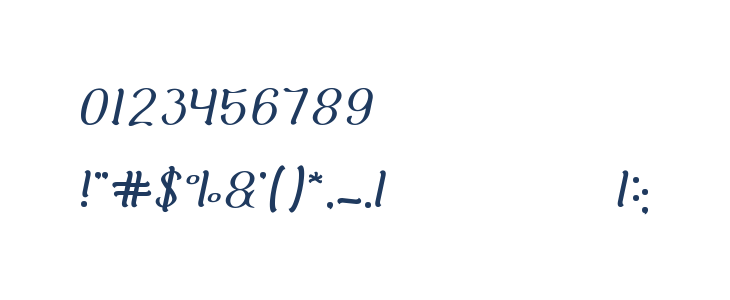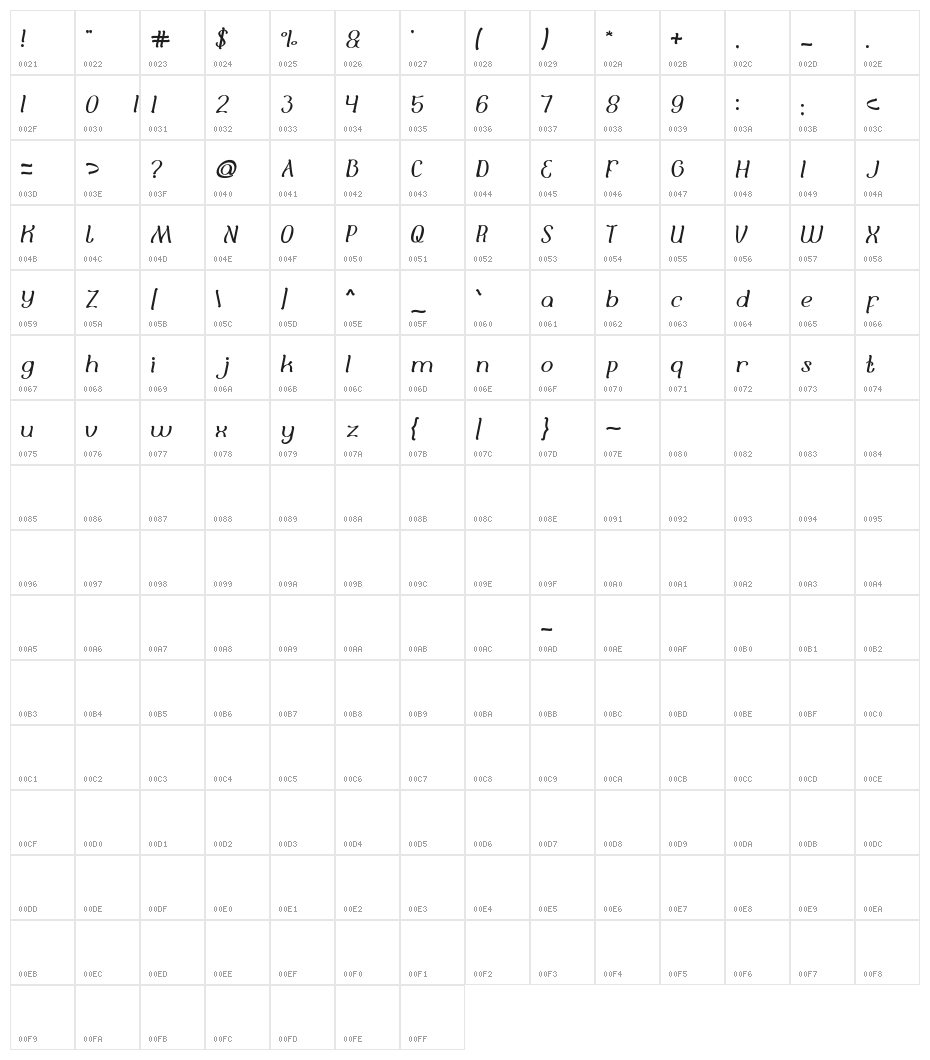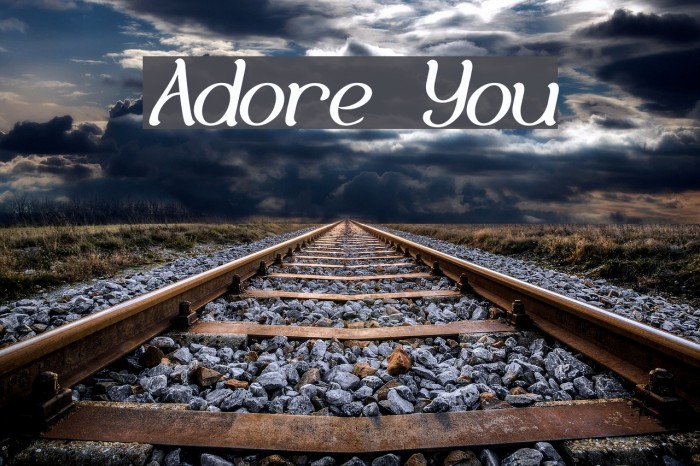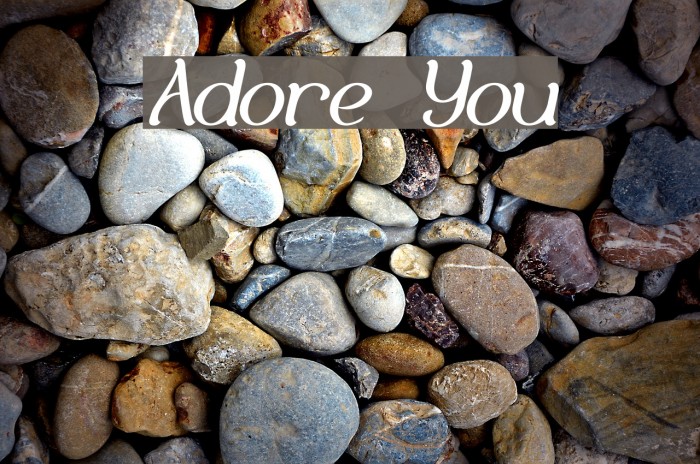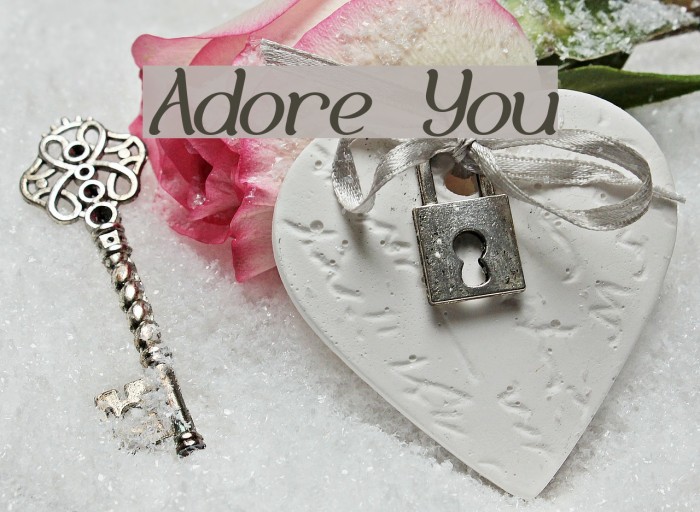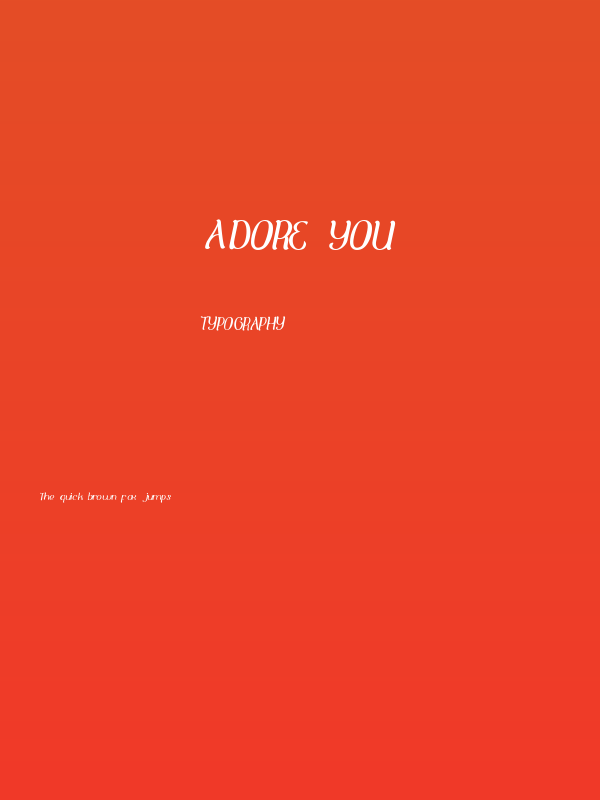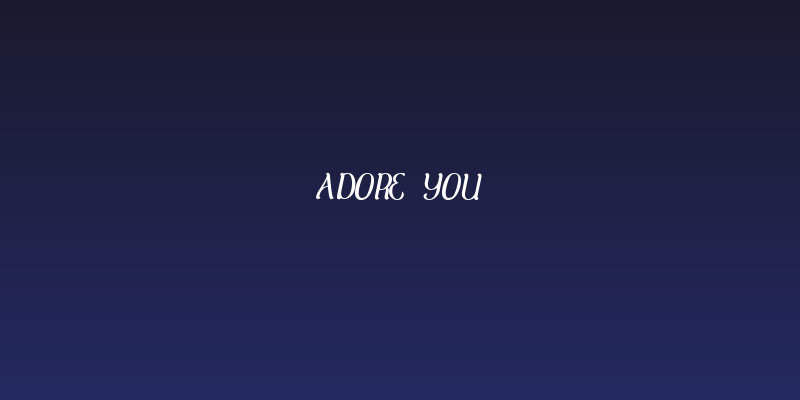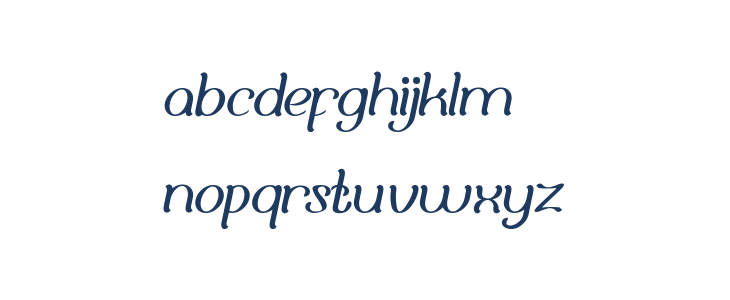
Adore You Font
Adore You Description
This font features a flowing, cursive style with elegant curves and a handwritten feel. The uppercase letters are bold and expressive, while the lowercase letters maintain a consistent fluidity, adding a touch of sophistication. The numerals are clear and distinct, complementing the overall aesthetic. Special characters are well-integrated, maintaining the font's cohesive style. The design is both decorative and legible, making it suitable for various creative applications.